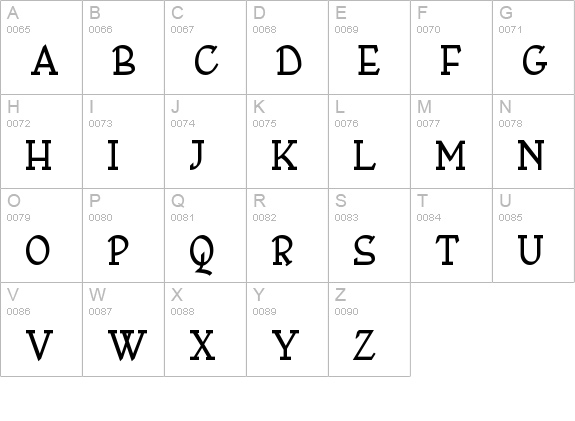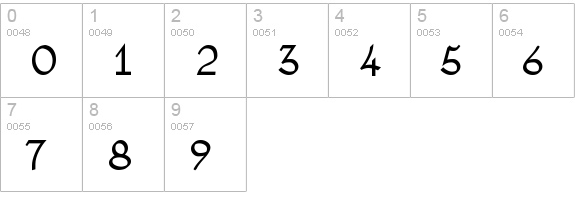
Anarckhie Bold is a strong, high-contrast variant in the Anarckhie typeface family \xE2\x80\x94 well suited to headlines, attention-grabbing titles, and strong calls-to-action.
Anarckhie Bold font is a striking and modern typeface that exudes confidence and boldness. Its sharp lines and strong presence make it perfect for headlines, logos, and other display purposes. The font is designed with a rebellious spirit, breaking away from traditional norms to make a statement. What sets Anarckhie Bold font apart is not only its edgy design, but also its accessibility. It is freely available to download at FontsMarket.com, allowing designers and creatives to easily incorporate this powerful font into their projects without any cost barriers. With its unique character and versatility, Anarckhie Bold font is sure to make a bold statement in any design.